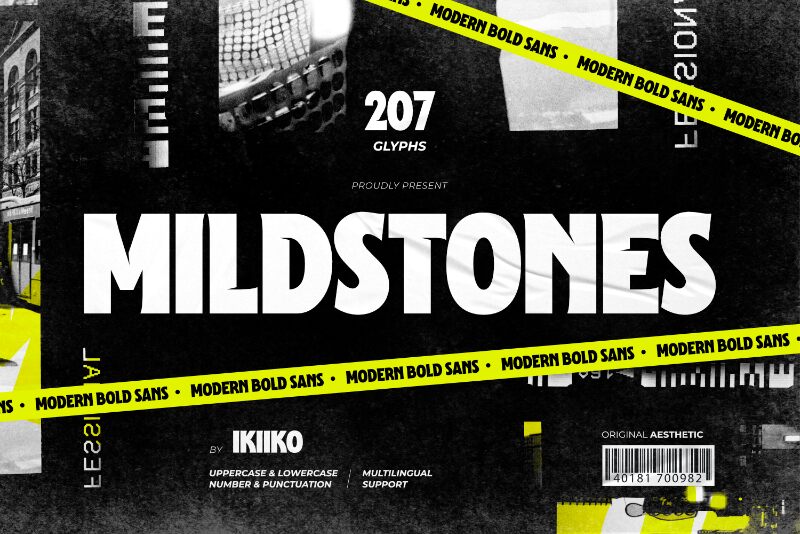
Mildstones font by Ikiiko Type is a free font inspired by vintage branding and signage. The sans serif focused on bold visual display and readability for short sentences and headlines. It features pleasant forms that stem from geometric shapes. The font is versatile and would fit many situations where elegance, confidence and seriousness have the upper hand.